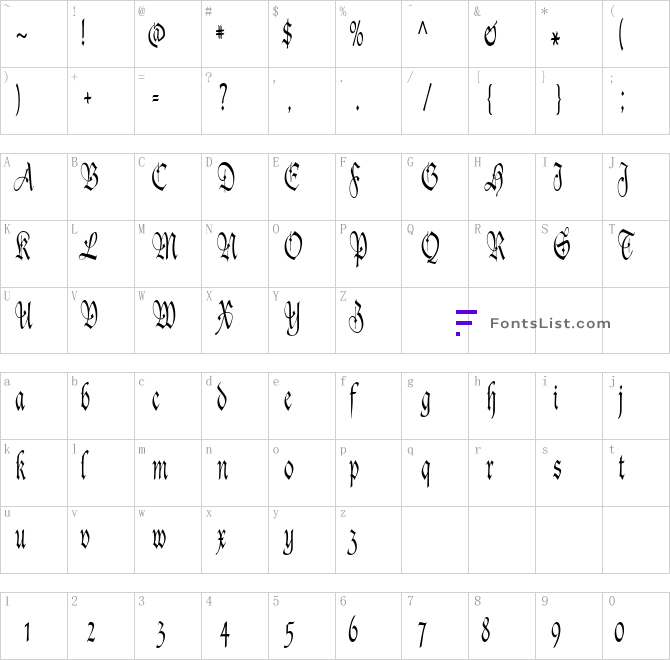
- Font Name:AgincortCondensed
AgincortCondensed.ttf is a very beautiful artistic font, AgincortCondensed.ttf is widely used in the design and printing of various books and pictures,AgincortCondensed.ttf has a strong visual impact,AgincortCondensed.ttf is a commonly used font in newspapers, magazines and books, and is used in posters, e-commerce Poster design, store design, logo design, font design and other fields.AgincortCondensed.